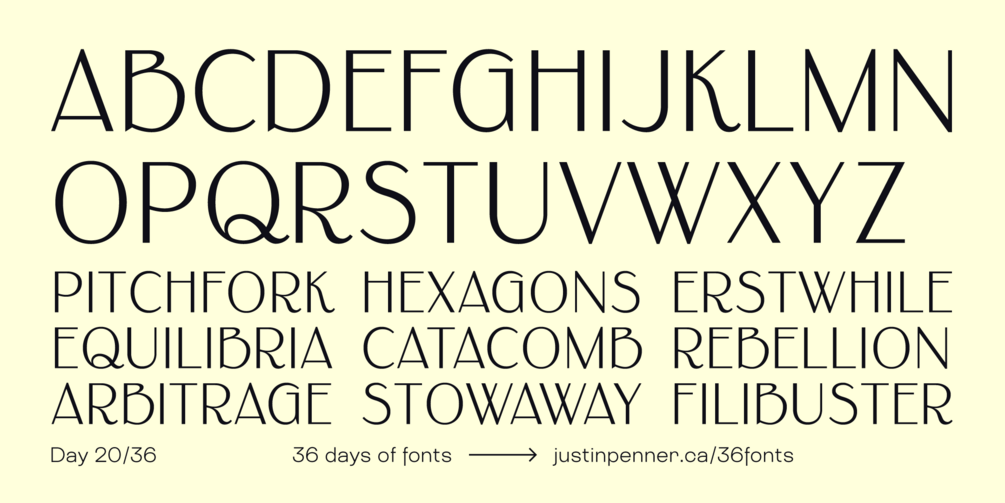
36 Days of Fonts: Day 20
Plaisir
Today I was looking some beautiful art deco lettering, on a piece of ephemera from the 1937 World Expo in Paris. I started this typeface by drawing a few similar letters, but made some changes and took it in another direction as I didn't want to do a direct revival, and I only had a few letters to look at anyway.